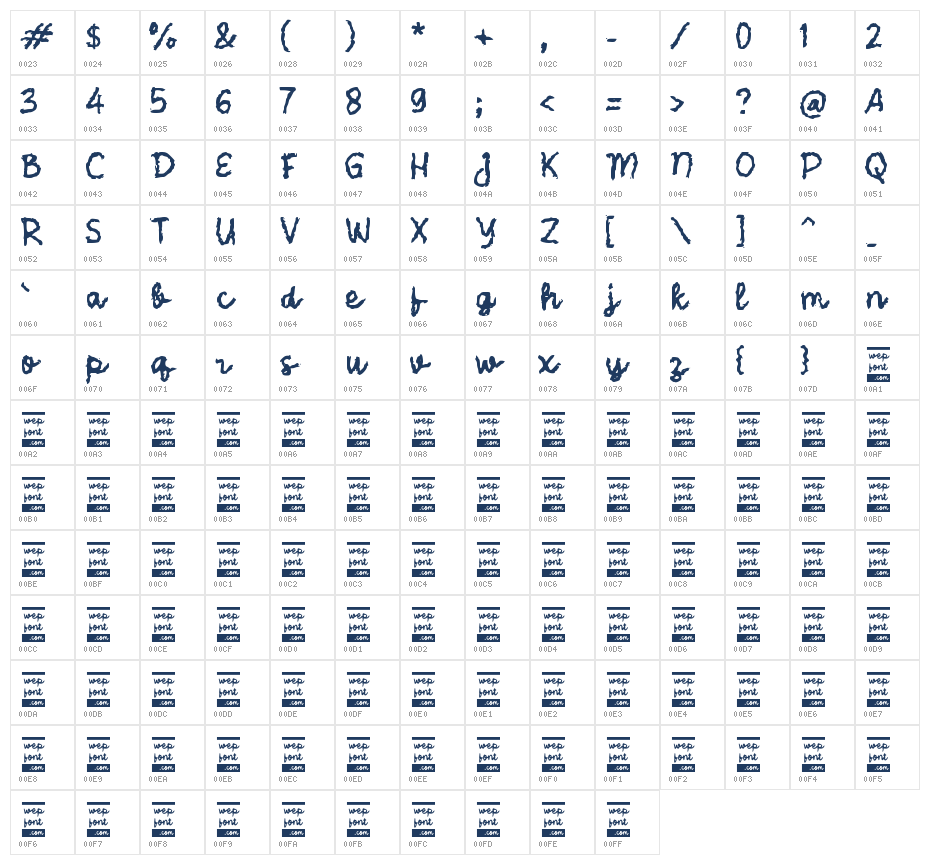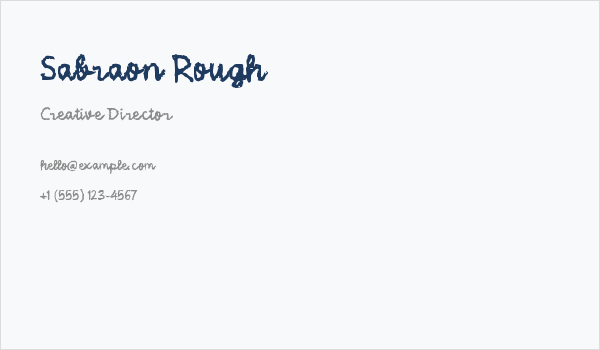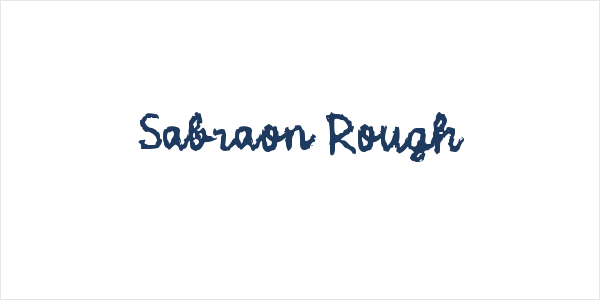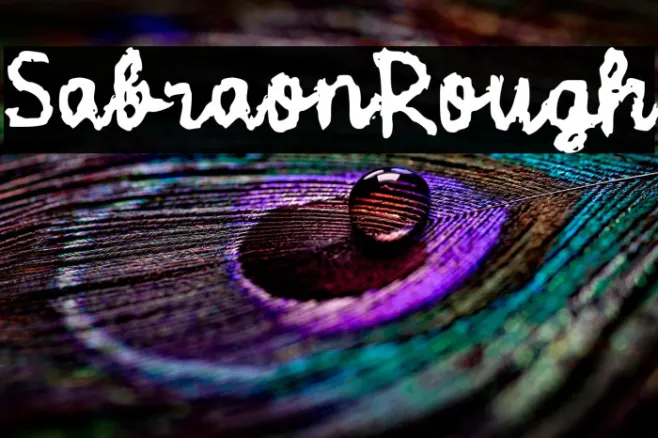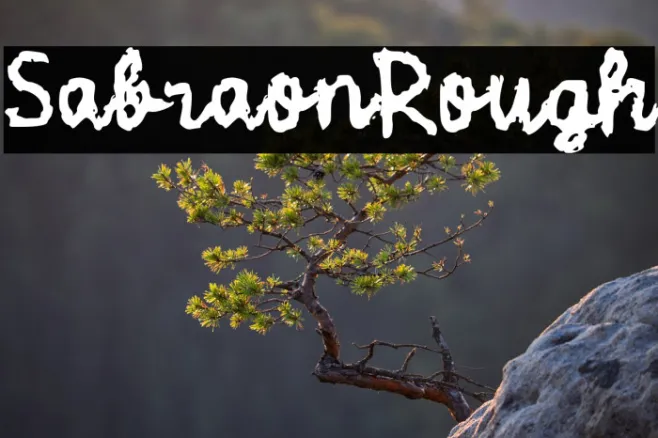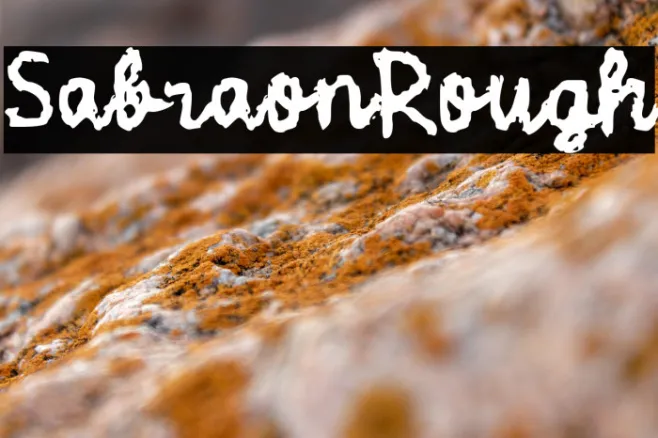
Sabraon Rough Font
Sabraon Rough Description
A handwritten, sketchy, and textured font with irregular strokes, giving a casual and artistic appearance.
| Overall Style | Casual, Artistic, Handwritten |
| Use Case | Creative projects, posters, invitations, branding |